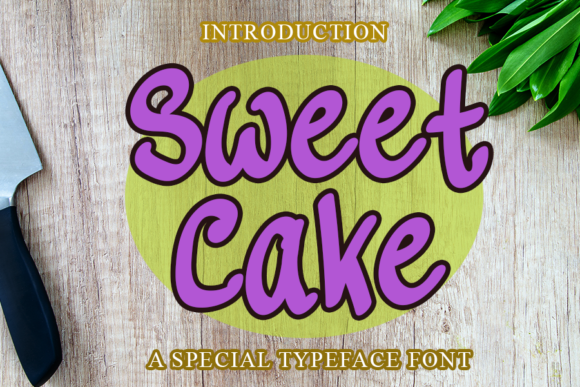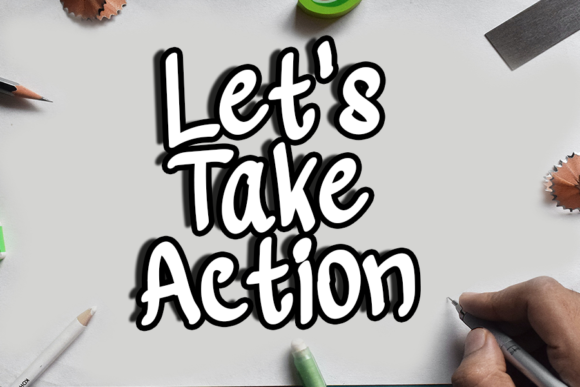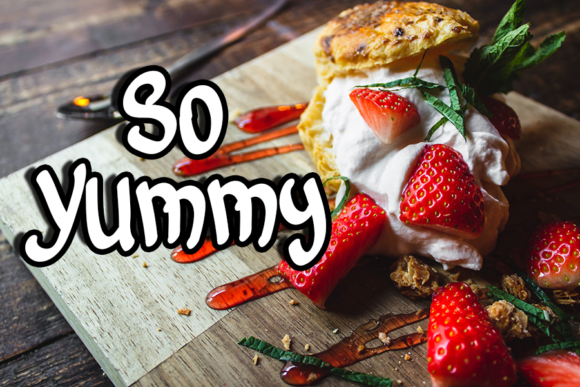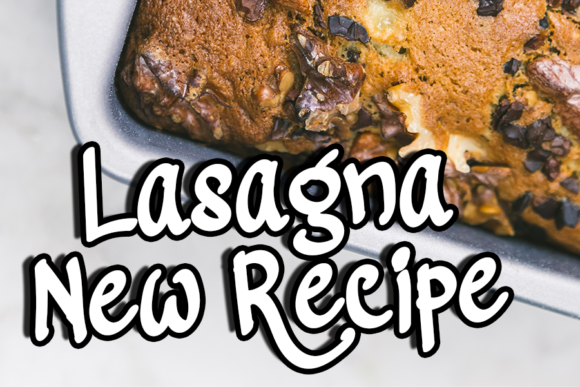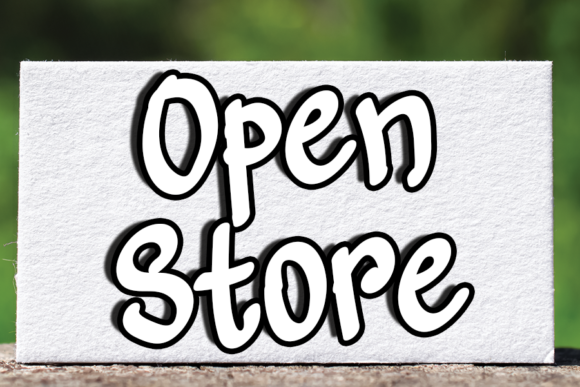
Sweet Cake
About Sweet Cake Font
Sweet Cake is an incredibly unique, brushed display font. Playful and quirky, this font will make each of your designs stand out. This original look will appeal to a wide range of crafty ideas, from letterheads and titles, to stationery.